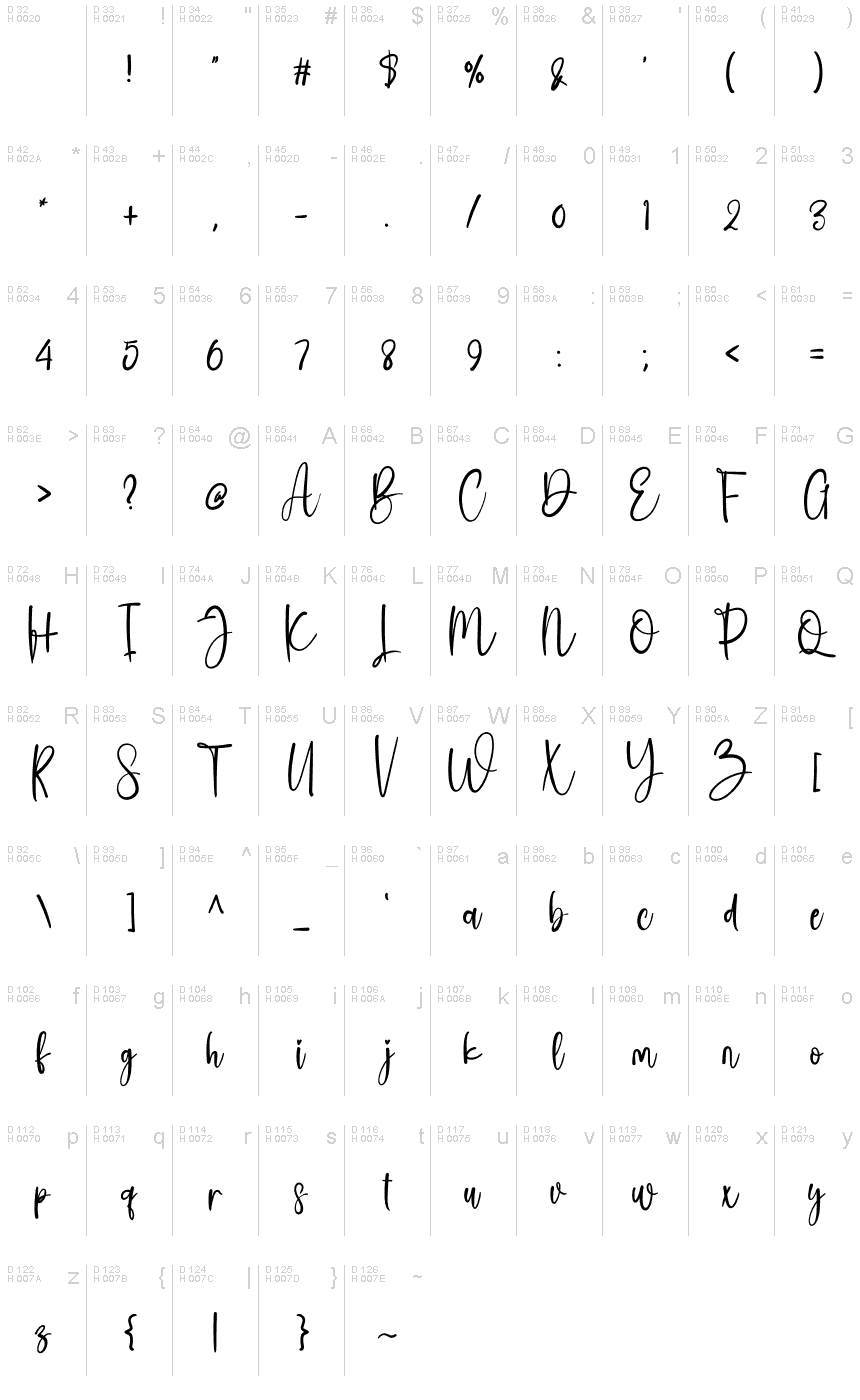
Creative Writing
Creative Writing, crafted by the skilled hand of Gunawan, brings the charm of semi-light handwritten script to your design arsenal. With each stroke exuding a personal touch, this font stands out for its ability to inject warmth and intimacy into every project.
Its fluidity makes it perfect for wall displays that seek to captivate, while its elegance is ideal for wedding invitations that aim to enchant. Not just confined to print, Creative Writing thrives in the digital realm as well—enhancing social media post logos and advertisements with its bespoke character. From product packaging to labels, and from photography watermarks to stationery, this font's versatility knows no limits.
Embrace Creative Writing and let your creative endeavors tell a story as unique as the font itself.